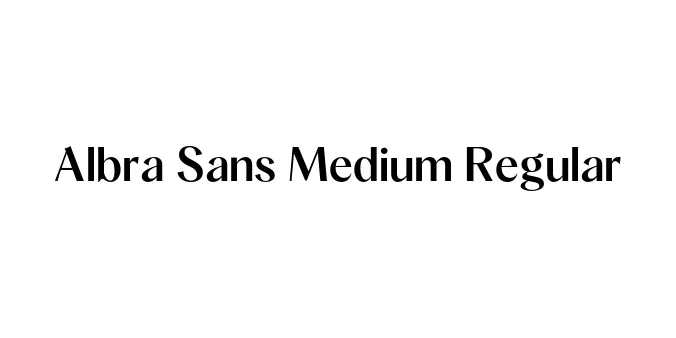
Albra Sans Medium Regular
Designed by BumbumType
Albra Sans Medium Regular is a sophisticated humanist sans-serif typeface that bridges the gap between classic elegance and modern geometric design. Developed as part of the extensive Albra superfamily, this specific weight offers a balanced stroke contrast that maintains high legibility while exuding a distinct, high-end personality. Its design is characterized by open apertures and a tall x-height, ensuring it remains clear across various media formats.
This typeface is particularly effective in editorial design and high-profile branding projects. The Medium weight provides a sturdy yet graceful presence on the page, making it versatile enough for both subheadings and short-form body copy. Whether used in digital interfaces or traditional print, Albra Sans Medium Regular brings a touch of timeless sophistication to any typographic composition.
Albra Sans Medium Regular Best Uses
Excellent for high-end magazine layouts and typographic hierarchy.
Ideal for fashion, beauty, and luxury lifestyle brand identities.
Perfect for modern, minimalist websites requiring a professional touch.